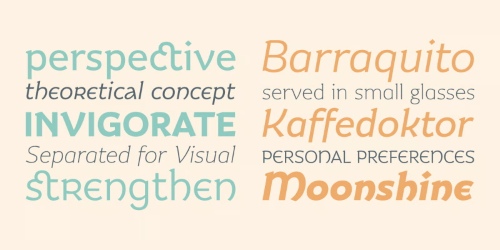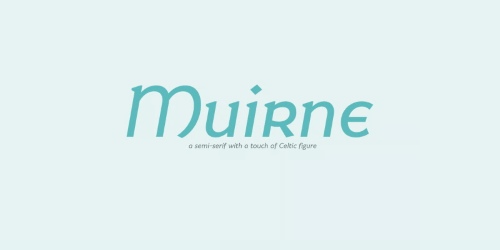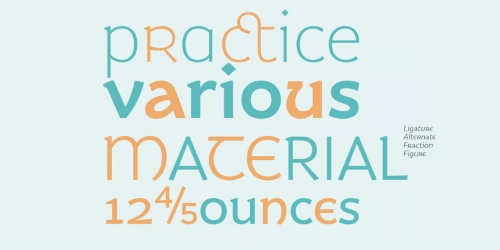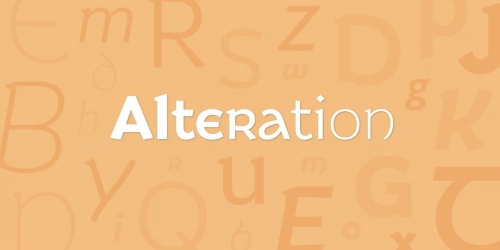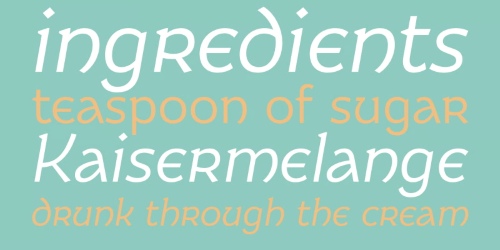
Muirne - 10 Styles Font Family
- Muirne, a cheerful semi-serif inspired by a Celtic calligraphy and figure. Font family contains from Light to Black weights and suitable Italic. With a dozen of alternates to enhance your typesetting with a Celtic touch.